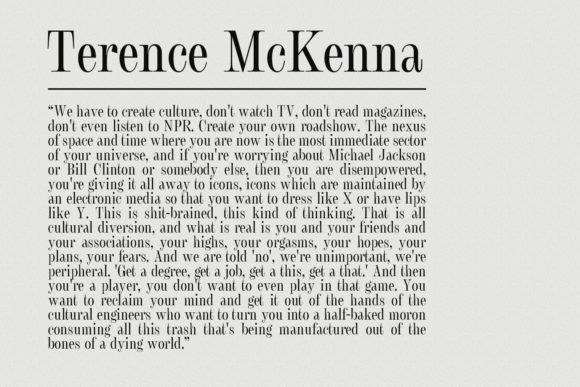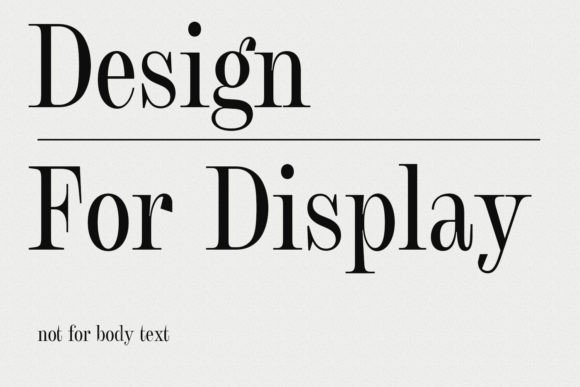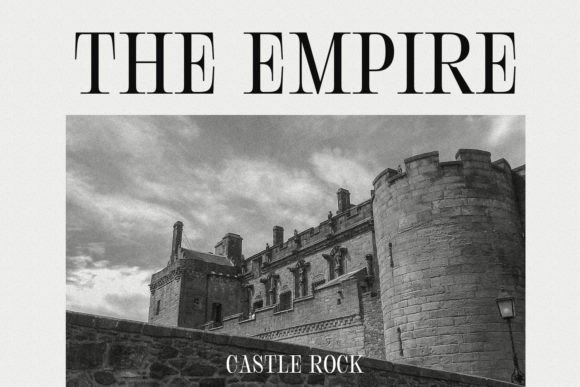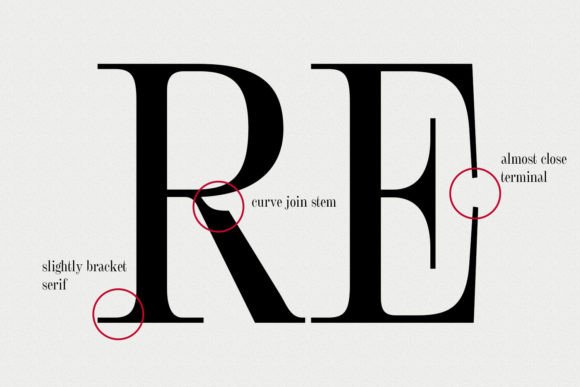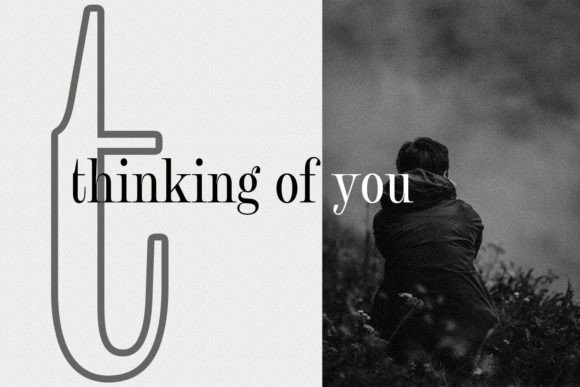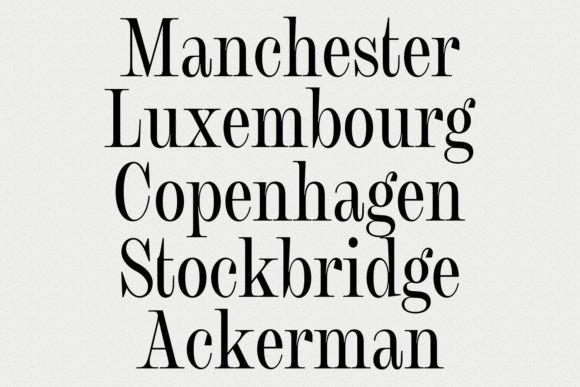
Introduction to Rasteira Font
As a designer, have you ever found yourself staring at a blank canvas, searching for the perfect font to bring your creative vision to life? The moment of truth arrives when you finally discover that elusive design resource that elevates your project from good to great. For those in pursuit of perfection, we’re thrilled to introduce the Rasteira Font – a masterpiece of typography that’s sure to become your go-to design companion.
With its stunning combination of intricate details and timeless feel, the Rasteira Font is an exceptional addition to any design arsenal. Its beautiful curves and sharp serifs exude sophistication, making it the perfect choice for high-end branding, editorial layouts, and any other creative project that demands a touch of elegance.
Key Features of Rasteira Font
- High-quality font design with a transparent background, perfect for creative projects
- Designed with a unique, modern aesthetic, ideal for use in logos, branding materials, and digital signage
Honest Review: Rasteira Font
I recently came across the Rasteira Font while searching for a design resource for a creative project. I must say, I was quite impressed with the results. The font has a unique and quirky design that adds a touch of personality to any text.
- ✨ The high quality design ensures that the font looks great on various backgrounds, including transparent backgrounds.
- ✨ The font is highly customizable, making it perfect for creative projects that require a unique touch.
However, I did encounter a few limitations while using the font.
- ⚠️ The font may not be suitable for formal or professional projects due to its quirky design.
Overall, I’m quite impressed with the Rasteira Font. Its unique design and high quality make it a great addition to any design resource library. While it may have a few limitations, it’s definitely worth considering for creative projects that require a bit of flair.
Rasteira Font
Rasteira Font is a high-quality design resource perfect for adding a touch of sophistication to your creative project. With a transparent background, this font is versatile and easy to use in various design applications.
Tips for Getting the Most Out of Rasteira Font
Use Rasteira Font to create eye-catching headings and titles in your design. Experiment with different font sizes and colors to add visual interest to your project.
Rasteira Font is perfect for use in logos, branding materials, and marketing collateral. It’s also great for adding a touch of elegance to wedding invitations and other special occasion materials.